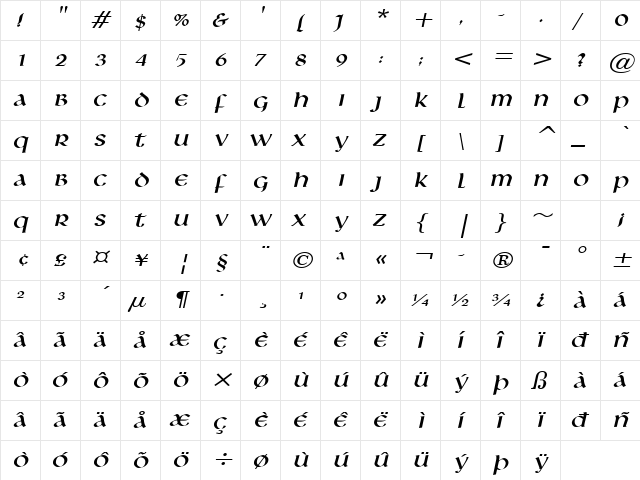
Leo Wide Italic
Design Context for Leo Wide Typeface
Leo Wide is a composed and adaptable typeface that performs quietly and consistently across a wide range of design contexts. The slanted form adds forward momentum and visual energy.
Pro Tip: Use Leo Wide for emphasis, pull quotes, and subheadings where its slanted energy can add rhythm to the layout.